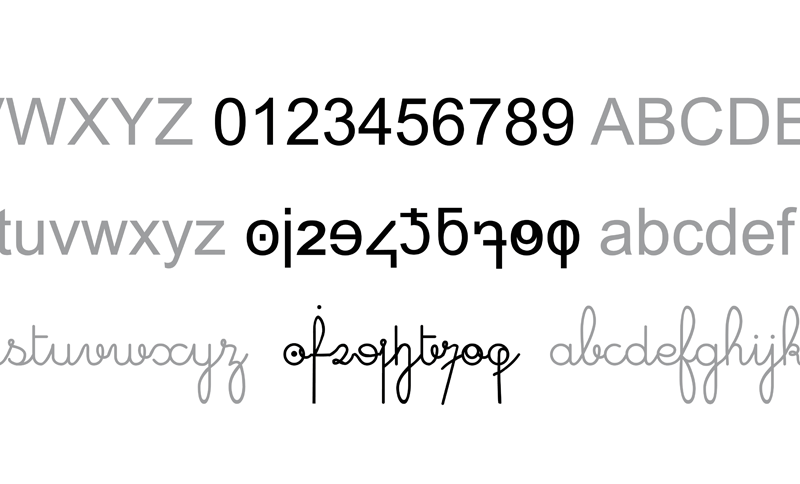
Font name: | Cursive Digits |
Author: | Cédric Dequidt |
Note by Cédric Dequidt | |
cursive digits creation of minuscule digits and cursive digits why the numbers don't have lower case and cursive? chiffres cursifs création de chiffres minuscules et chiffres cursifs pourquoi les chiffres n'ont pas de miniscules et d'attachés ? THIS IS NOT A NEW FONT, IT'S A NEW WAY TO WRITE CECI N'EST PAS UNE NOUVELLE TYPO, C'EST UNE NOUVELLE FACON D'ECRIRE |